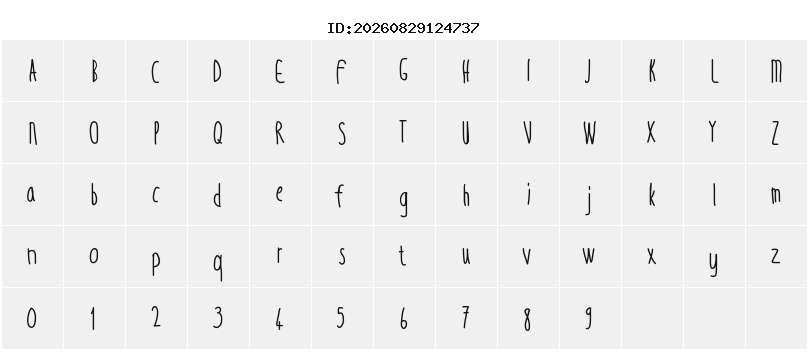
ThinTall Preview
• Font Name: ThinTall
• Font Style: ThinTall
• Full Font Name: ThinTall
• PostScript Name: ThinTall
About ThinTall.ttf
ThinTall.ttf is a modern, elegant sans-serif font designed for ultimate readability and visual harmony. Perfect for branding, headlines, web design, and print materials.